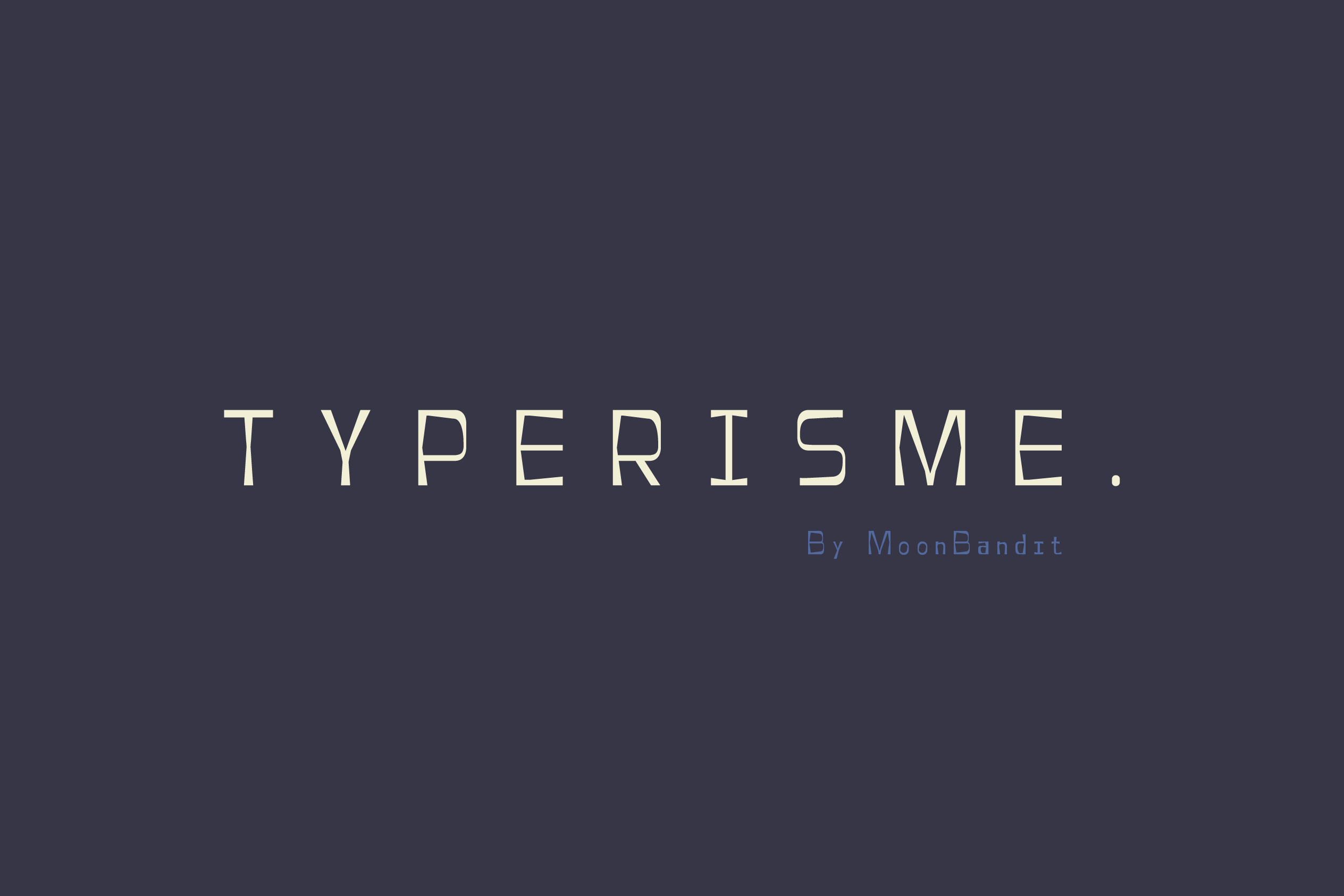
Typerisme - A modern typewriter font
Moonbandit proudly presents, Typerisme. The modern take on the typewriter font. This typeface is perfect for your old, retro, vintage distressed look without going overboard. Huge kerning to boost clarity. Use it for body text, headline, title, one liner, anything! this typeface is versatile.